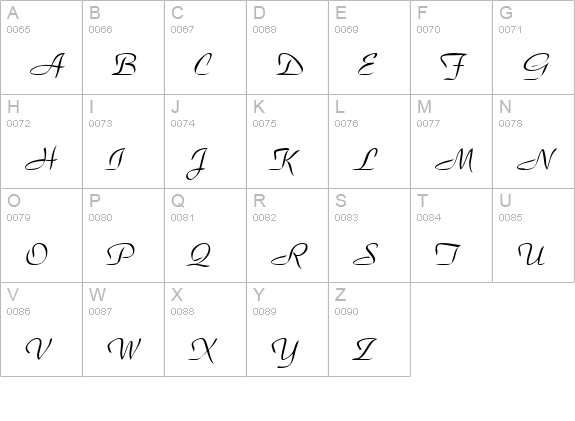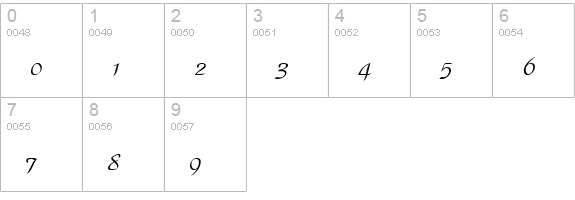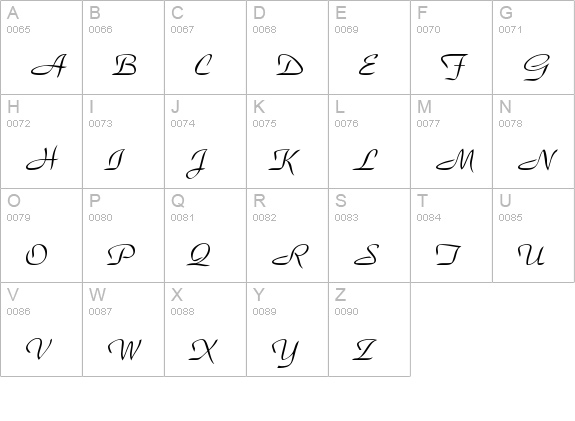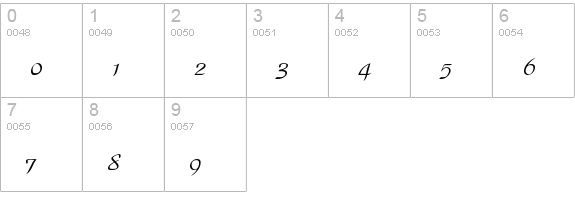
TR Floyd Font Details
TR Floyd font is a versatile and modern typeface that exudes elegance and sophistication. With its clean lines and stylish curves, this font is perfect for a wide range of design projects, from branding to editorial design. The sleek and timeless design of TR Floyd font makes it a popular choice among designers looking to add a touch of class to their work. The best part is that TR Floyd font is available for free download at FontsMarket.com. This means that you can easily access this stunning font and use it in your projects without any cost. Whether you're working on a personal project or a client's design, TR Floyd font is sure to elevate your work and make a lasting impression. So why wait? Download TR Floyd font today and add a touch of elegance to your designs.